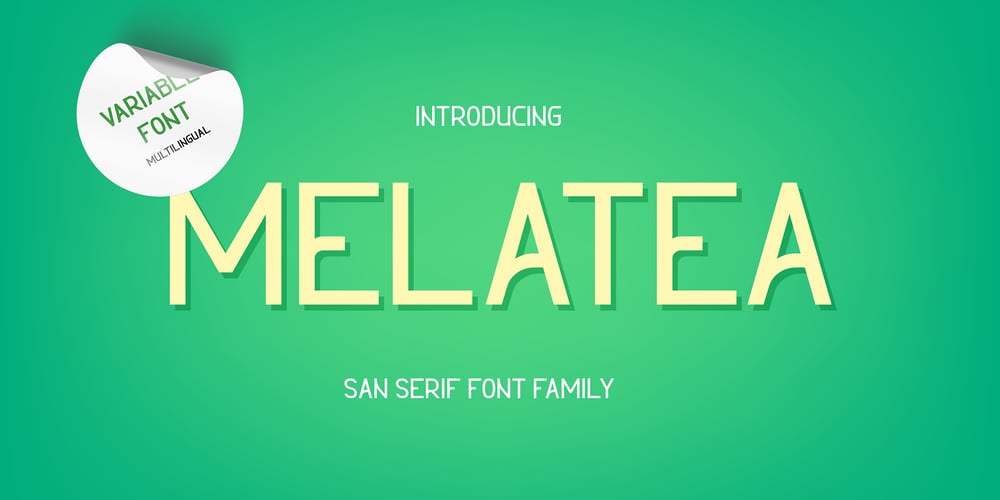
Melatea
Melatea font
Melatea Font Family was designed by Wahyu Azizi and published by San Studio. Melatea contains 54 styles and family package options. Melatea is a minimal and neat sans serif font. It can easily be matched to an incredibly large set of projects, so add it to your creative ideas and notice how it makes them stand out!